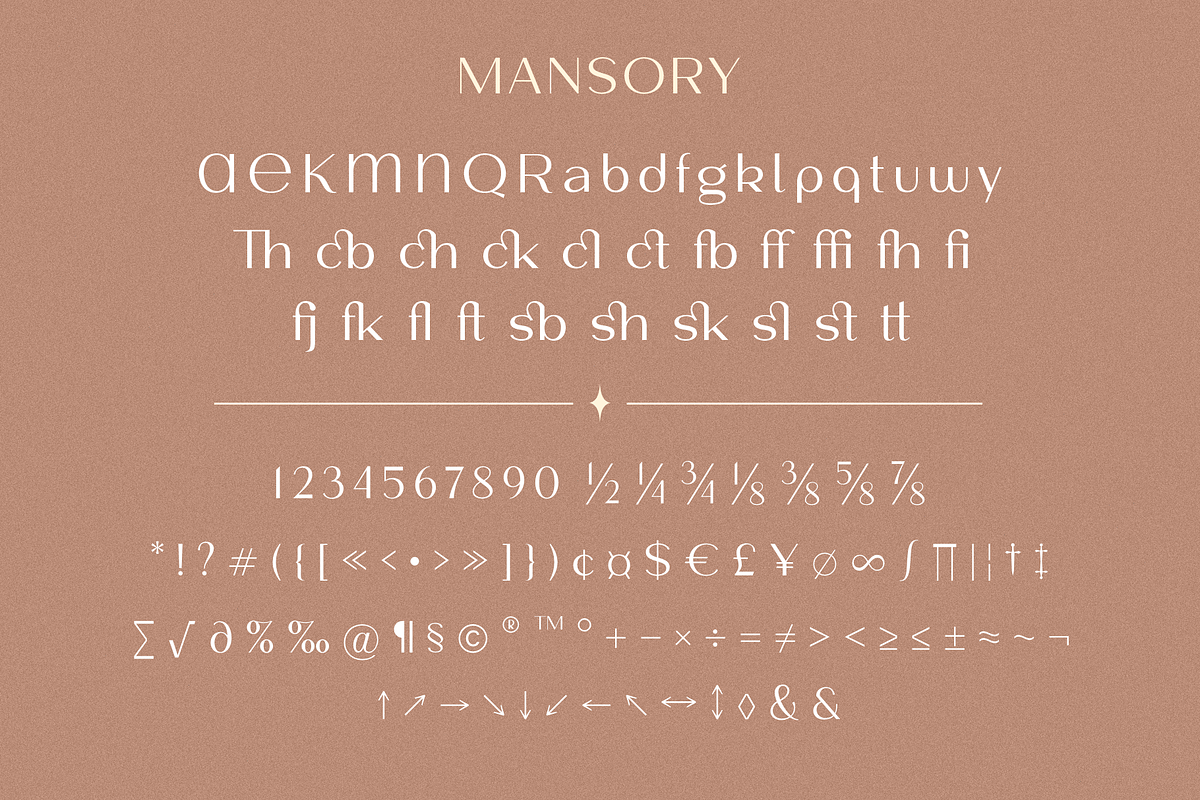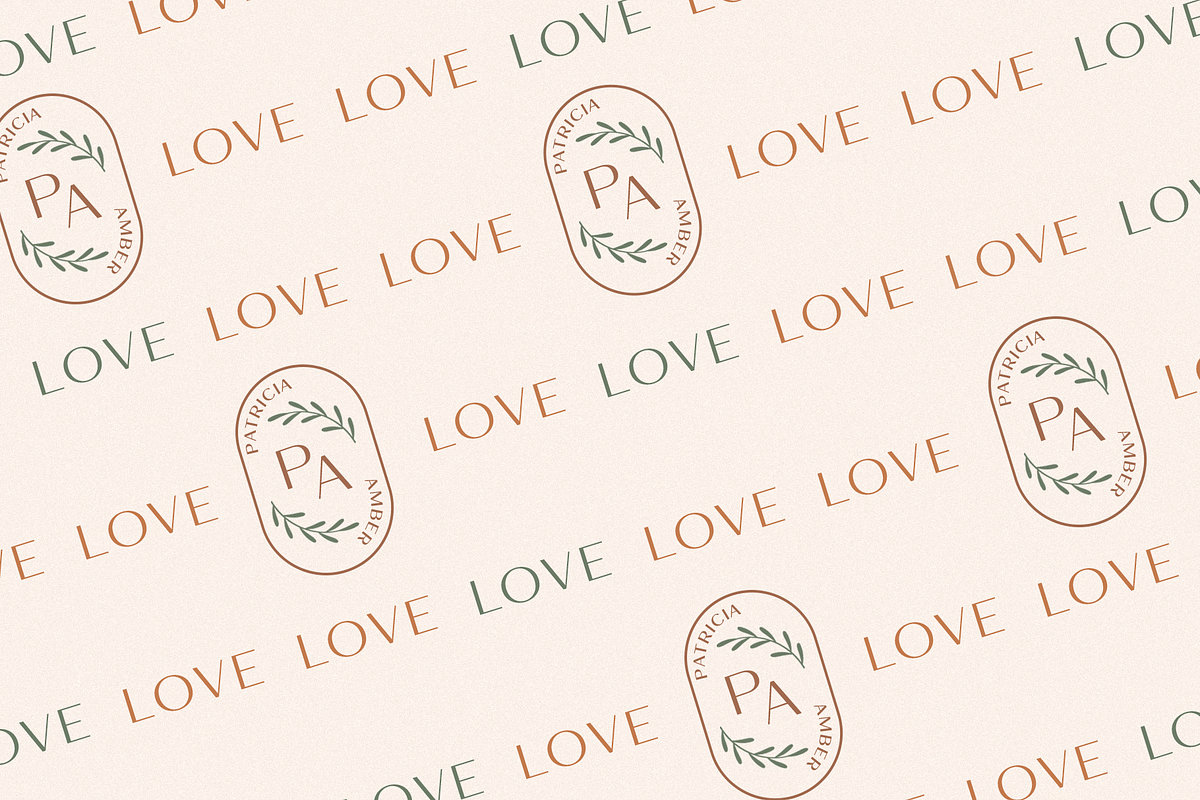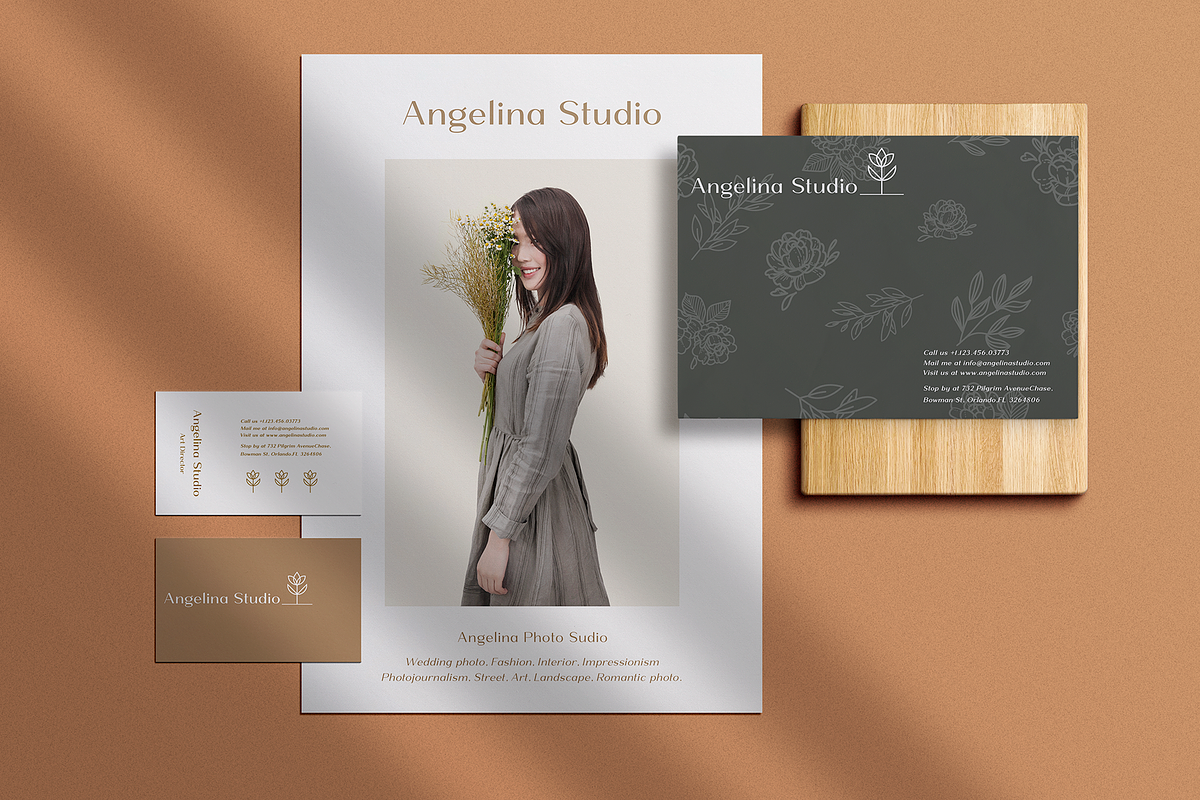
Mansory
Mansory This is a modern contrasting and elegant sans serif font, which is presented in a upright and oblique style and also has 4 weights, this gives more opportunities for your design project. Contrasting lines and balanced forms of these fonts will provide recognition and will be easy to read. The regular style is perfect for text, while the heavier ones are perfect for logos, headings or will highlight exactly what you need.
Mansory font family has stylistic alternates and ligatures that are harmoniously combined with the font, with them you can make your project more individual.
This font is easy to use has OpenType features.
Following international symbols support: ÀÁÂÃÄÅĄÇĆÈÉÊËĘÌÍÎÏÐÑŃŁÒÓÔÕÖØÙÚÛÜŚŠŸÝŹŻŽßàáâãäåçèéêëìíîïðñòóôõöøùúûüýÿąćęłńśšźżž
Full alphabet with Uppercase and Lowercase A-Z
Numbers, fractions
Punctuation and symbols
Alternates, also ampersand